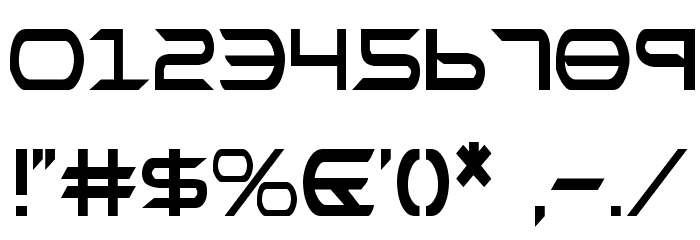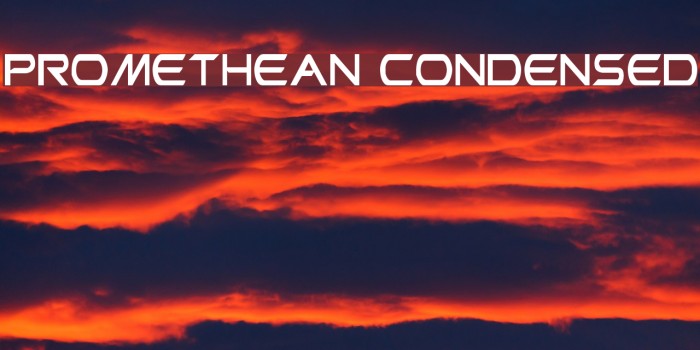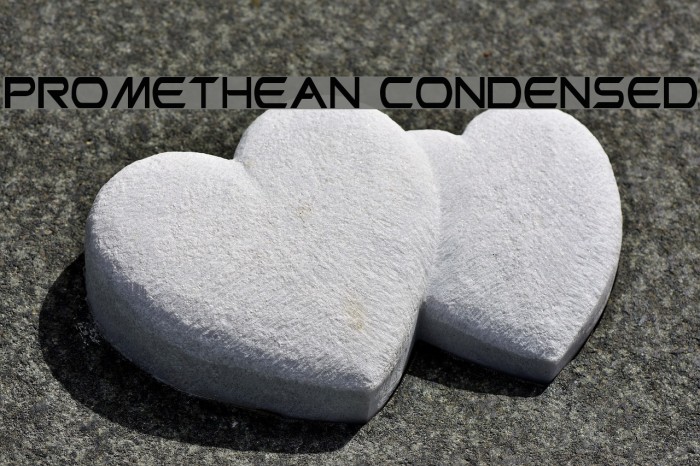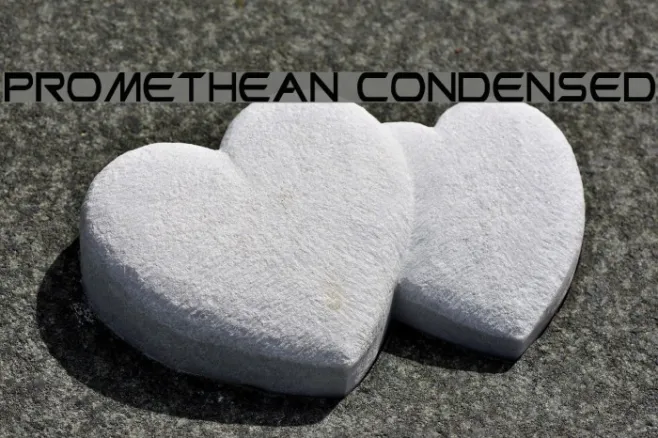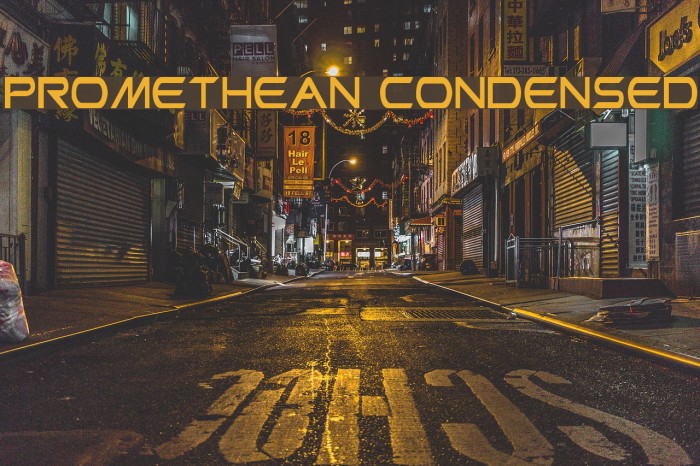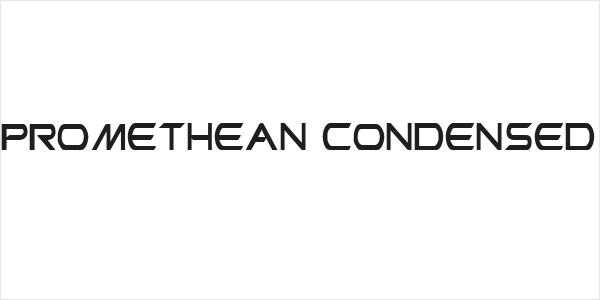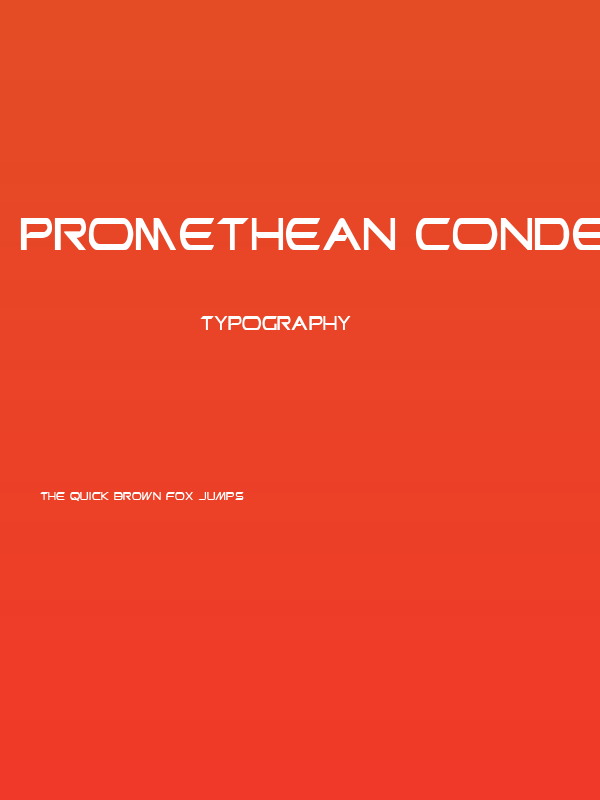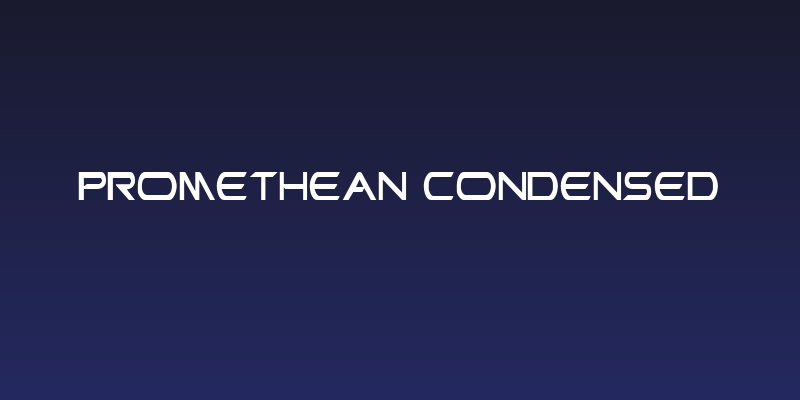
Promethean Condensed Font
Promethean Condensed Description
This font features a futuristic and geometric design with sharp angles and a condensed form. The uppercase letters are bold and striking, with a unique angular cut that gives them a modern, tech-inspired look. The lowercase letters maintain the same angular style, providing consistency across the typeface. Numbers and special characters are designed with the same geometric precision, making them ideal for digital and print media. The overall appearance is sleek and contemporary, suitable for projects that require a modern and innovative touch.
Use CaseHeadlines, Logos, Digital interfaces
Proposed ProjectsIdeal for technology branding, sci-fi themed designs, digital interfaces, and modern advertising campaigns.